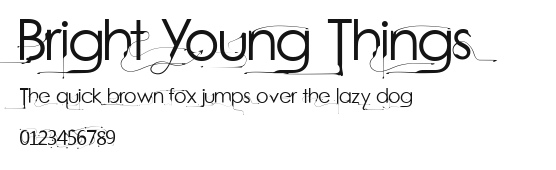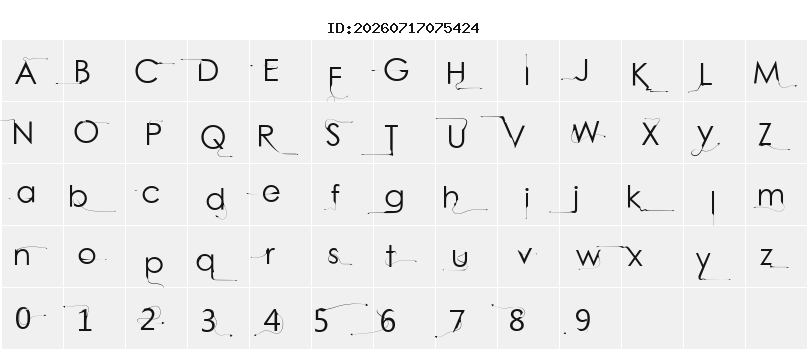
• Font Name: Bright Young Things
• Designer: hugo beyts
About Bright Young Things.ttf
Bright Young Things.ttf is a modern, elegant sans-serif font designed for ultimate readability and visual harmony. Perfect for branding, headlines, web design, and print materials.